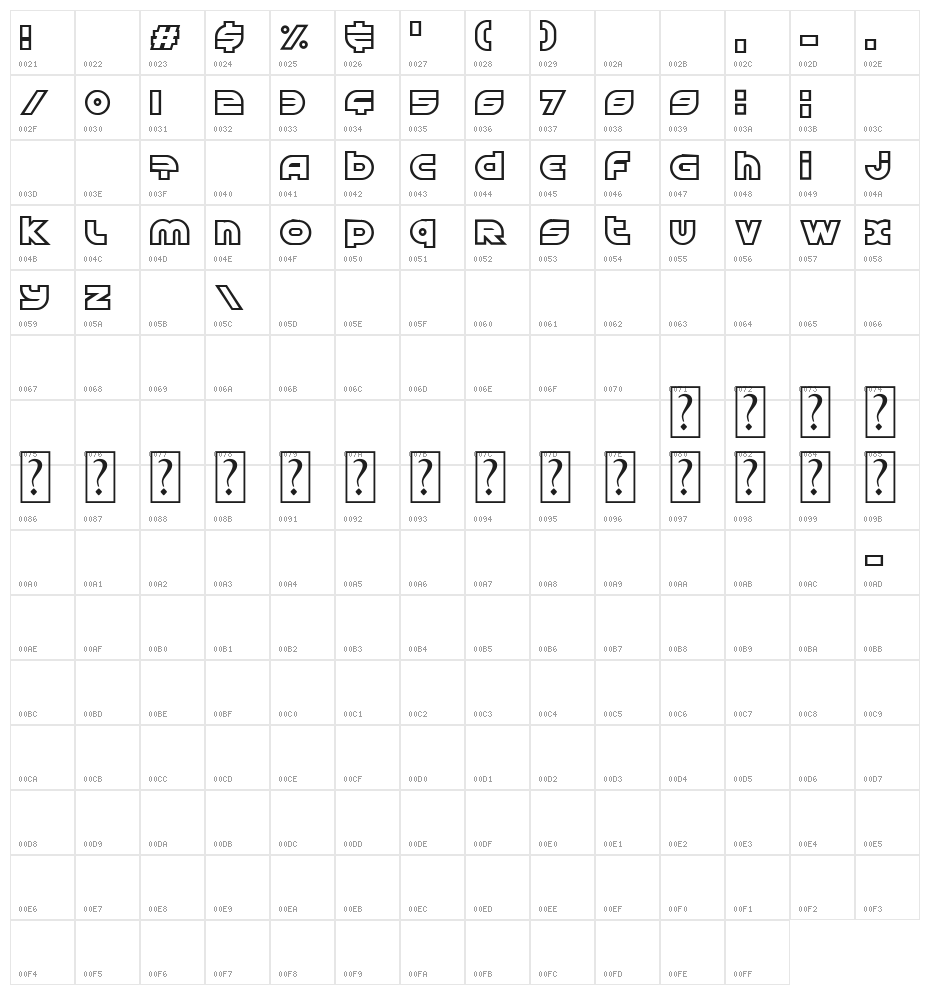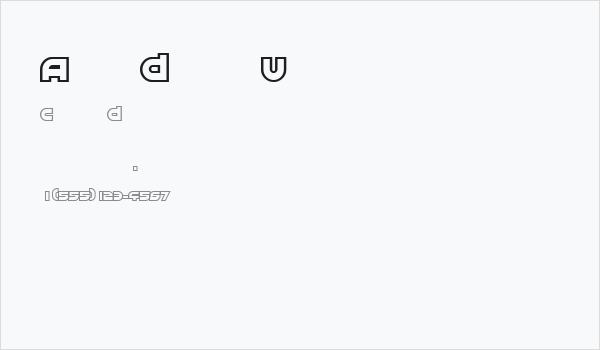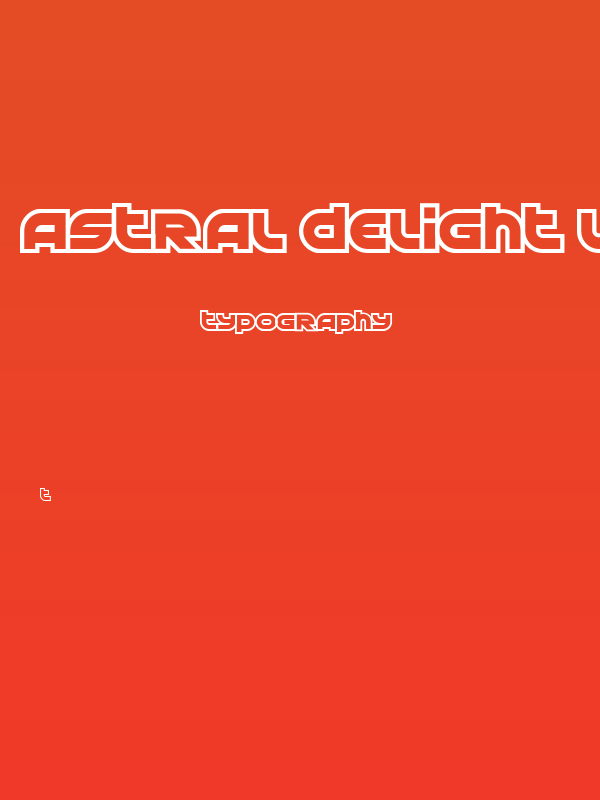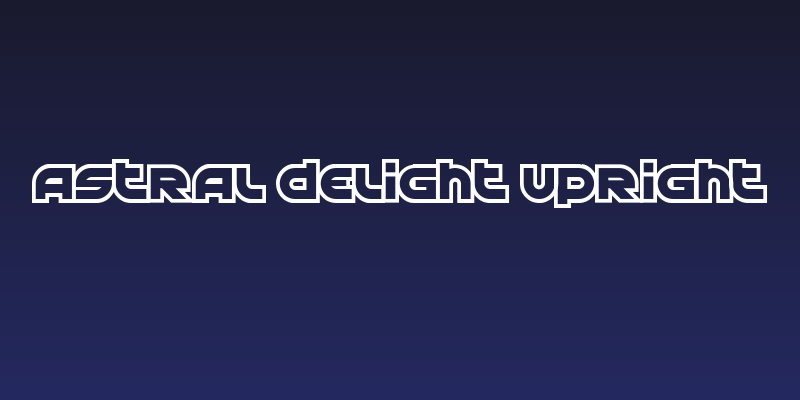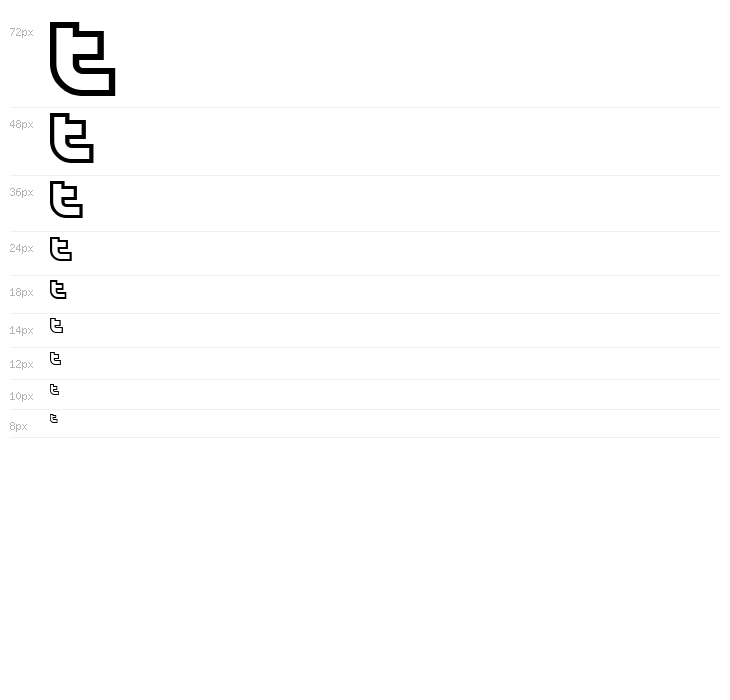
Astral Delight Upright Font
Astral Delight Upright Description
This font features a bold, geometric design with a futuristic flair. Each character is outlined, creating a hollow effect that adds depth and dimension. The letters are uniformly structured with rounded edges and consistent line thickness, giving it a clean and modern appearance. The numbers and special characters follow the same design principles, ensuring a cohesive look across all elements. The font's unique style makes it stand out, suitable for projects that require a contemporary and eye-catching typeface.
| Proposed Projects | Ideal for sci-fi themed posters, modern branding, digital artwork, and video game graphics. |